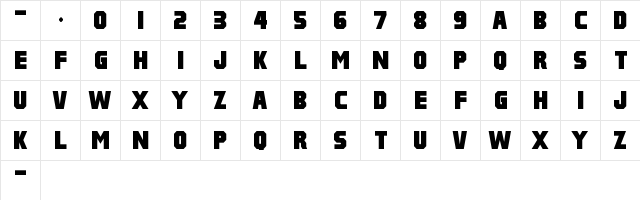
Pulp Fiction M54 Regular
| Foundry | M54 (justme54s) |
| Designer | Mohammed Rahman |
Design Context for Pulp Fiction M54 Typeface
Pulp Fiction M54 offers clean, dependable letterforms without strong stylistic allegiance, making it a practical choice for designers who need flexibility.